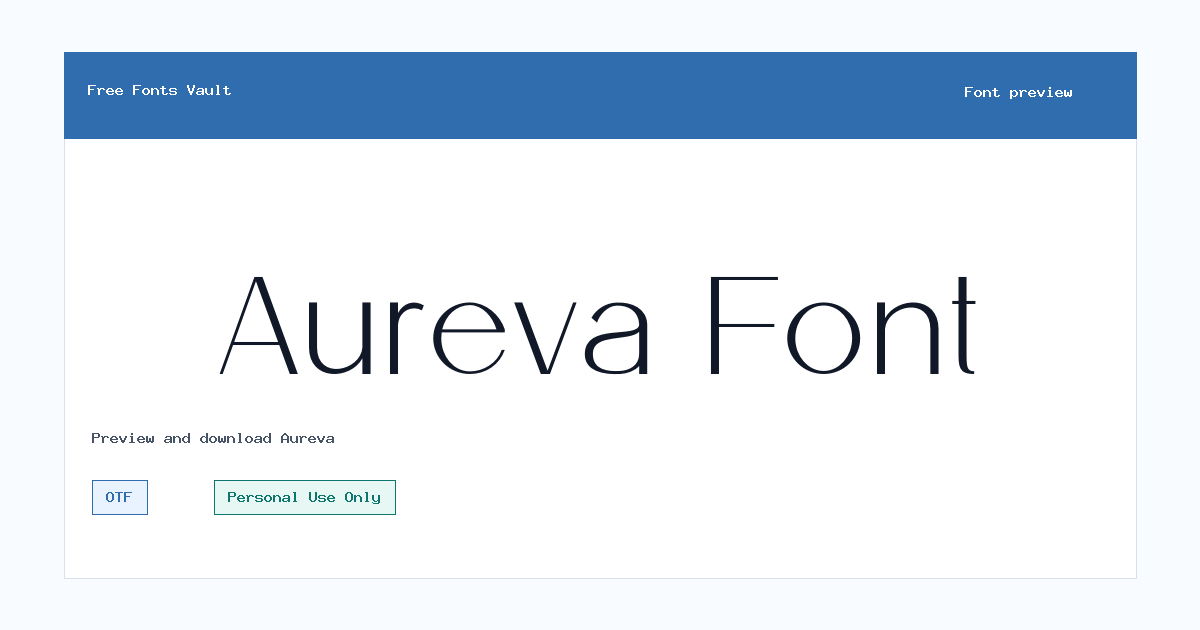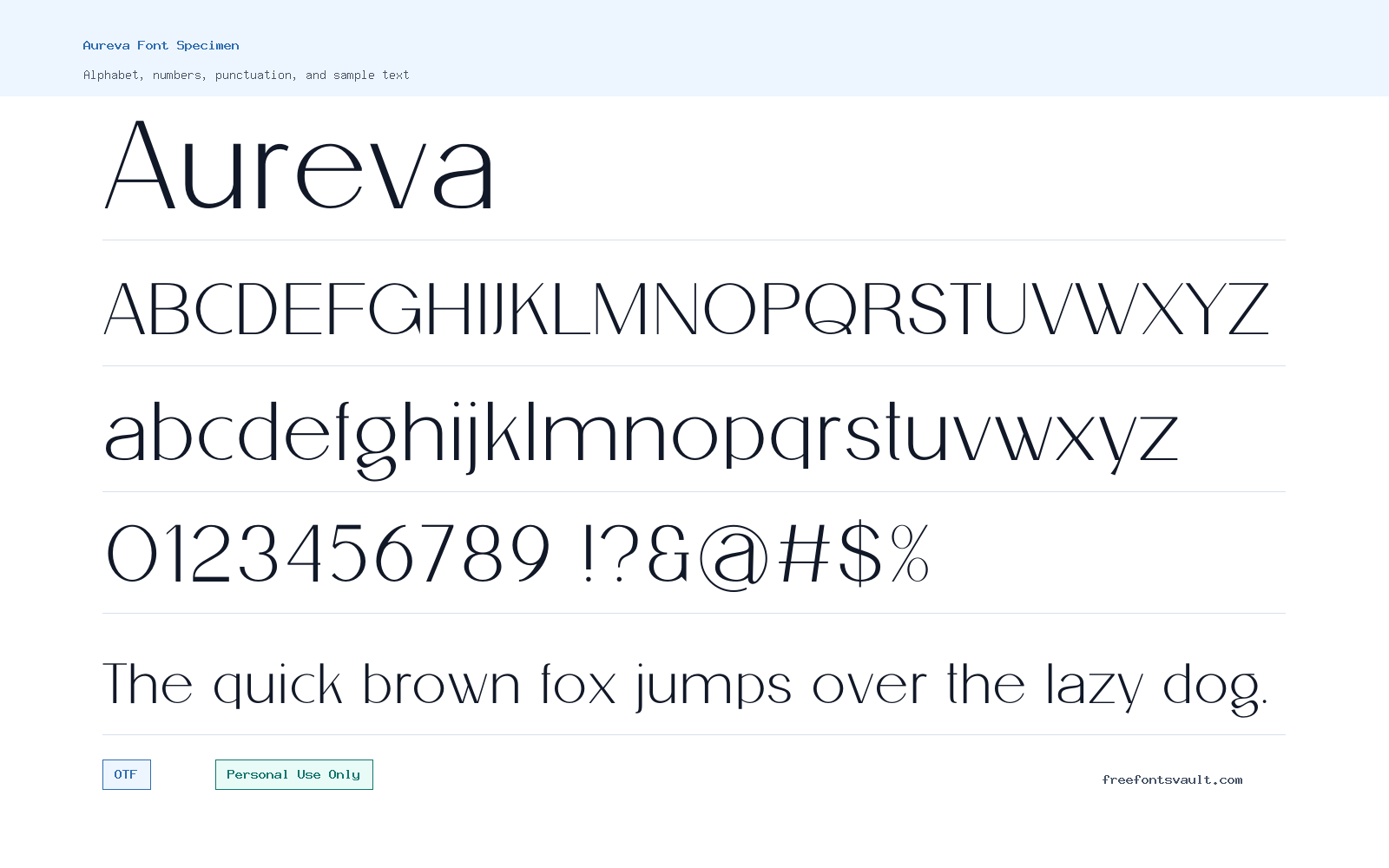
Aureva
Aureva is a sans serif font from Funtype Co. with a regular OTF style for personal projects. Use the preview box to test your own words before downloading, especially if you plan to use it for headings, logos, posters, or social graphics.
Aureva works best when you need a clean sans serif look without adding too much visual noise. The available style is regular weight, so it is most useful for simple titles, short labels, quotes, name marks, and layout mockups where one steady style is enough. Since there is only one listed variant, it is a good idea to test your exact text size and spacing in the preview before building a full design around it.
Try Aureva with short words, all-caps samples, mixed-case headings, numbers, and punctuation. That will show how the letter shapes behave in real use and whether the spacing feels right for your project. For longer paragraphs, test a few lines at the size you expect to use; many display-friendly sans serif fonts look strongest in short text but may need careful line height and contrast for body copy.
• Sans serif style suited to clean titles, labels, and simple display text
• Single available variant, making preview testing important before use
• Practical for personal mockups, social posts, invitations, and layout tests
• Personal posters, quote graphics, and social media artwork
• Headings, short titles, labels, and presentation slides
• Branding concepts or logo drafts for private testing
• Clean layout experiments where a regular sans serif style is enough